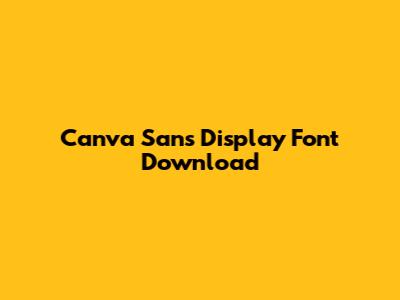
Canva Sans Font: Download And Usage Guide
Hey guys! Are you looking to download the Canva Sans display font? You've come to the right place! In this article, we’ll dive deep into everything you need to know about Canva Sans, including what it is, where to download it, how to use it, and why it's such a popular choice for designers and content creators. Whether you’re a seasoned graphic designer or just starting, understanding fonts like Canva Sans can significantly enhance your projects. So, let's get started and unlock the potential of this fantastic font!
What is Canva Sans?
Canva Sans is more than just a font; it's a versatile and modern typeface designed to meet a wide range of design needs. Created by the design team at Canva, this font embodies simplicity, readability, and a contemporary aesthetic. It’s crafted to be highly legible across various mediums, from digital screens to print materials, making it an excellent choice for branding, marketing, and editorial designs.
One of the key characteristics of Canva Sans is its clean and geometric structure. The letterforms are carefully balanced, providing a harmonious and visually appealing look. This makes it incredibly user-friendly, ensuring that your audience can easily read and engage with your content. Canva Sans also comes in multiple weights and styles, offering flexibility for different design applications. Whether you need a light touch for body text or a bold statement for headlines, Canva Sans has you covered.
Moreover, Canva Sans reflects Canva’s commitment to user-friendly design. It’s designed to integrate seamlessly within the Canva platform, offering a consistent and cohesive design experience. However, its appeal extends far beyond the Canva ecosystem. Many designers appreciate its versatility and use it in various other design software and projects. Understanding the nuances of Canva Sans can truly elevate your design work, providing a professional and polished look that resonates with your audience.
How to Use Canva Sans
Once you have access to Canva Sans, knowing how to use it effectively is key to creating impactful designs. Canva Sans is incredibly versatile, making it suitable for a wide range of applications. Whether you're designing a logo, creating marketing materials, or working on a website, understanding how to leverage its strengths can significantly enhance your work.
For headlines and titles, consider using the bolder weights of Canva Sans. Its clean and modern appearance makes it highly legible, even at larger sizes. Pair it with a contrasting font for body text to create visual interest and hierarchy. When it comes to body text, opt for the regular or light weights of Canva Sans. Ensure that the text is easily readable by adjusting the font size, line height, and letter spacing. A comfortable reading experience is crucial for engaging your audience.
Incorporate Canva Sans into your branding guidelines to maintain a consistent visual identity. Use it across your logo, website, and marketing materials to create a cohesive brand image. Experiment with different styles and weights to find the perfect balance that reflects your brand's personality. Consider the context in which you're using Canva Sans. For example, a minimalist design might benefit from a lighter weight, while a more dynamic design could use a bolder weight to make a statement. Always ensure that the font complements the overall design and enhances the message you're trying to convey.
So, there you have it! Everything you need to know about Canva Sans and where to download it (or find suitable alternatives). This font is a fantastic choice for any designer looking for something clean, modern, and versatile. Whether you're working on branding, marketing, or web design, Canva Sans can help you create stunning visuals that capture your audience's attention. And remember, even if you can't directly download Canva Sans for use outside of Canva, there are plenty of excellent alternatives available. Happy designing!